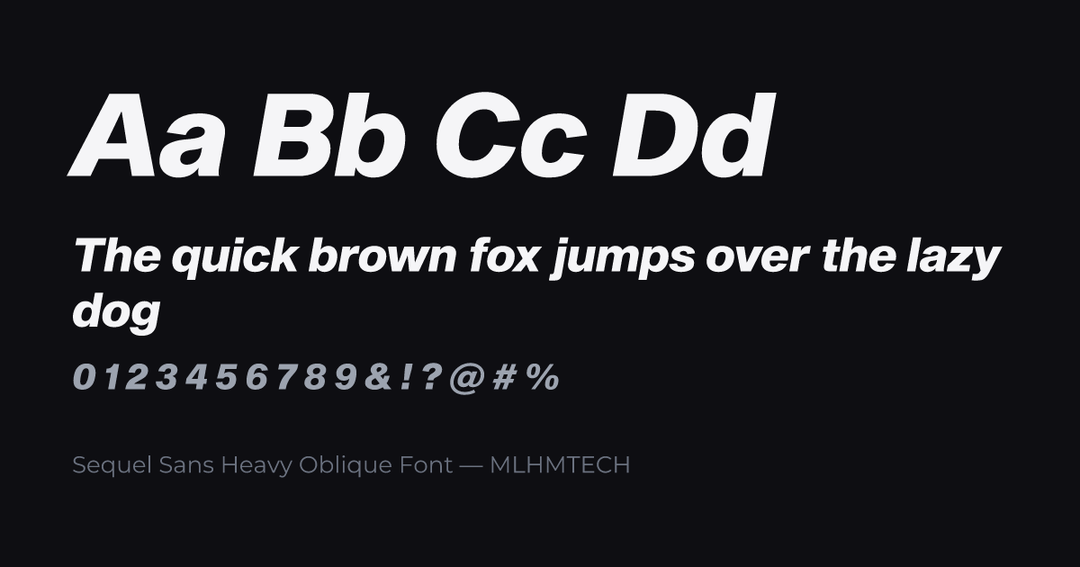
Sequel Sans Heavy Oblique Font
Sequel Sans Heavy Oblique is a bold, slanted sans-serif font ideal for impactful headlines and modern branding.
Sequel Sans Heavy Oblique is a high-contrast sans-serif typeface with a pronounced oblique angle, exuding confidence and motion. Its heavy weight makes it perfect for headlines, posters, and branding that demands attention.